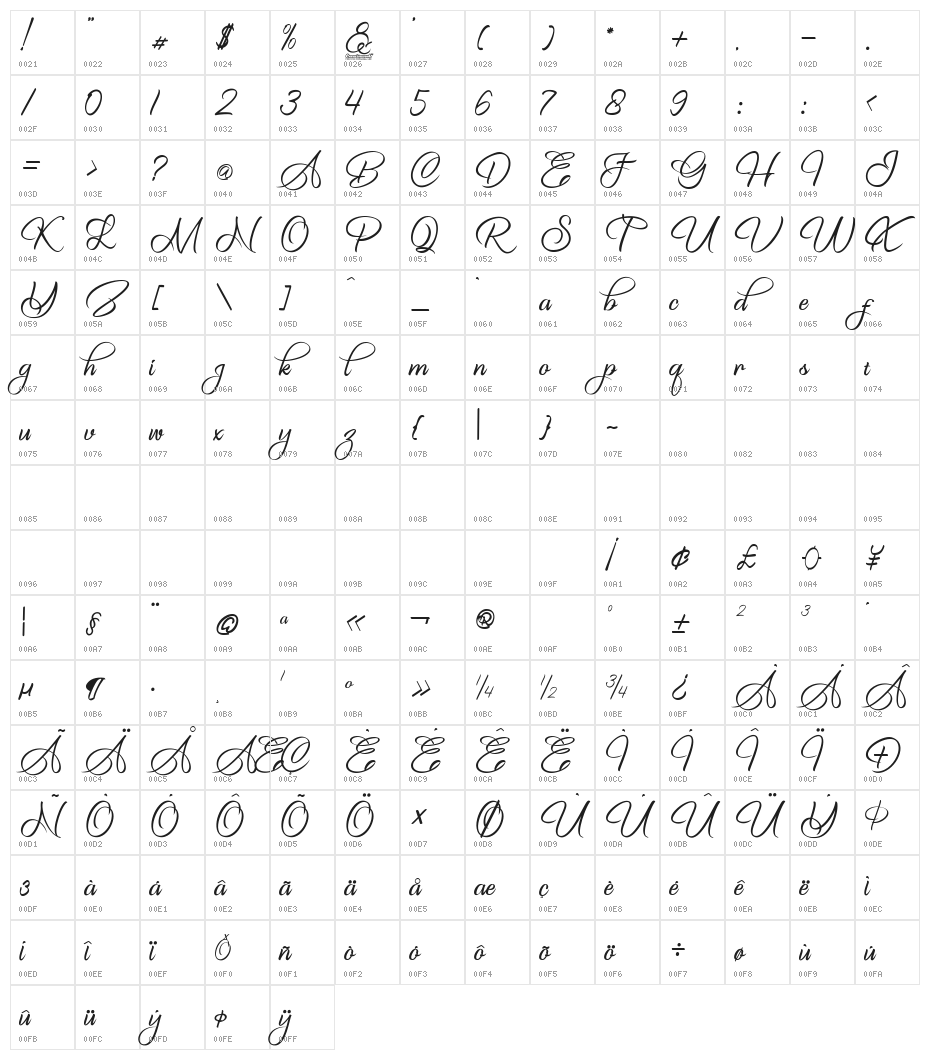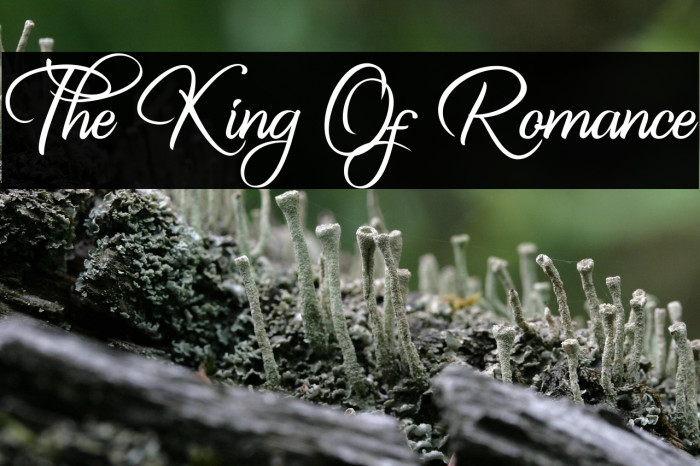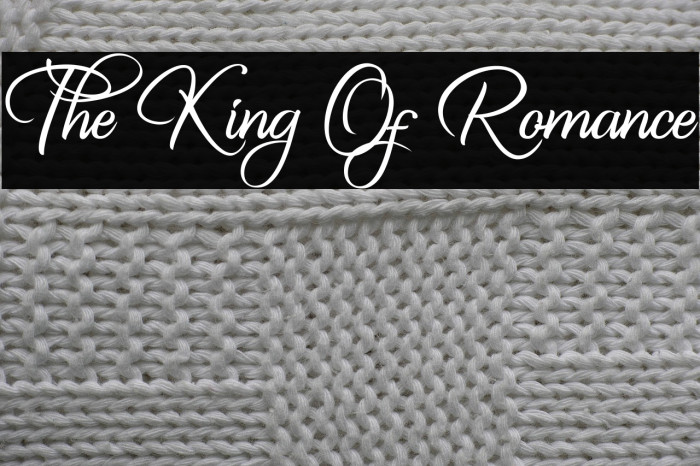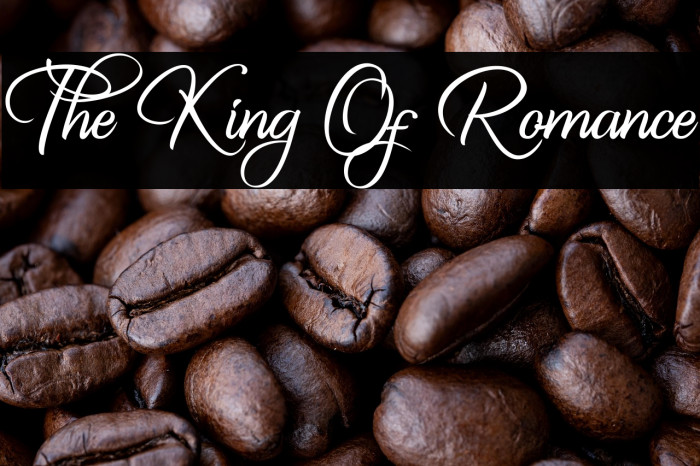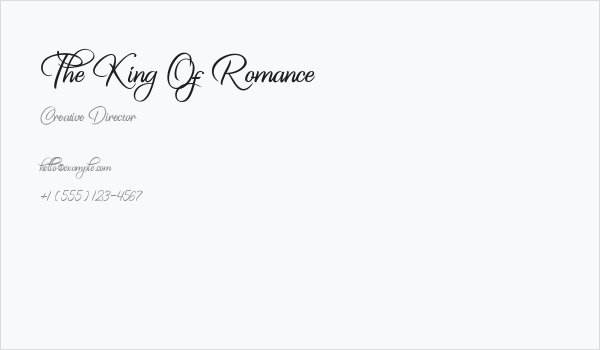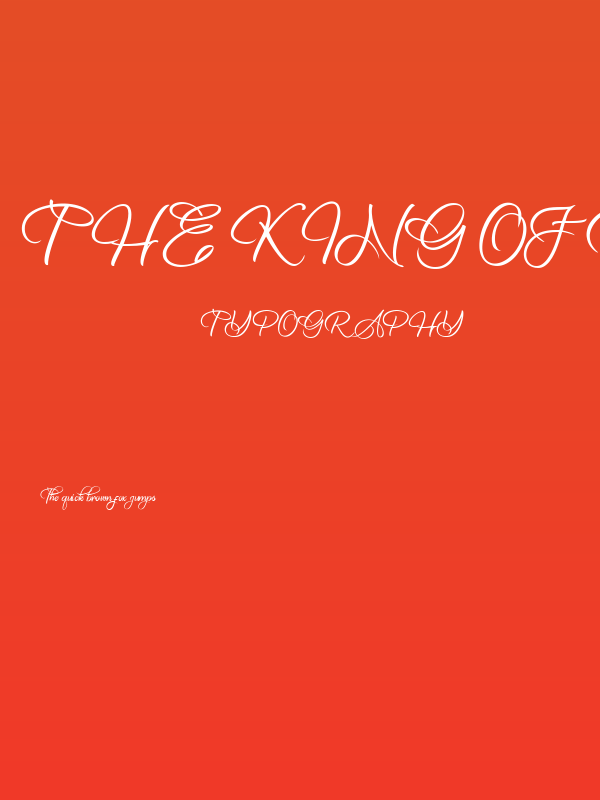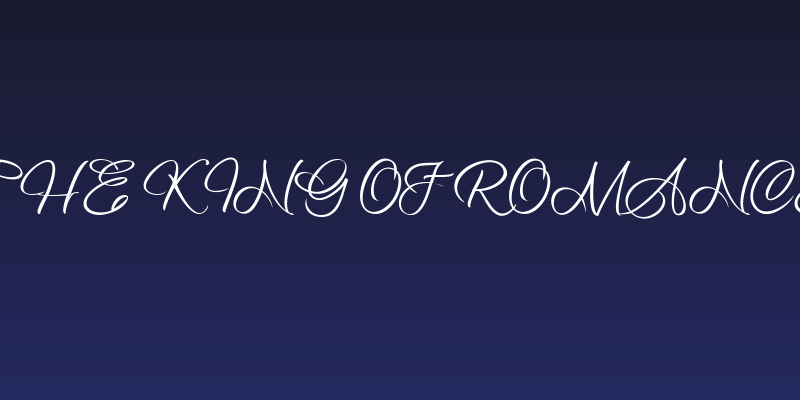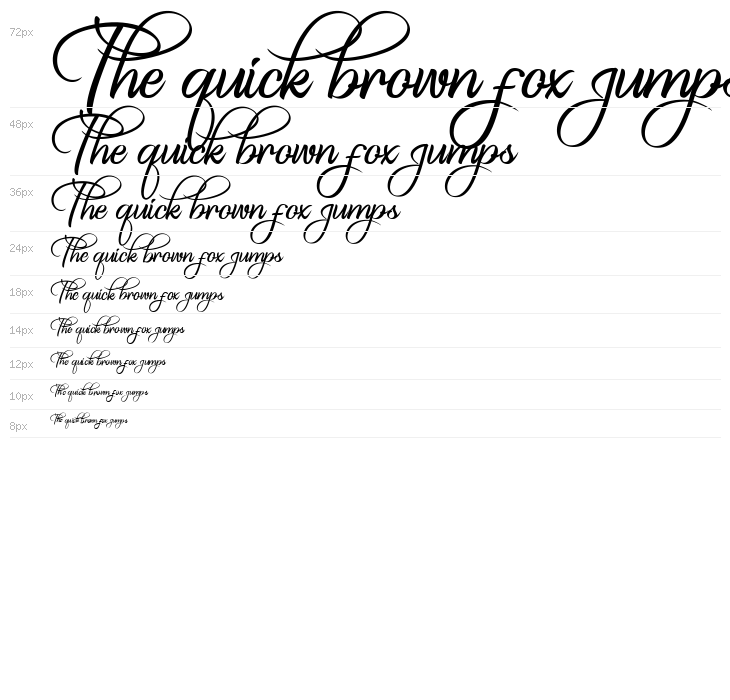
The King Of Romance Font
The King Of Romance Description
This font exudes elegance and sophistication with its flowing, cursive script style. The characters are intricately designed with sweeping curves and flourishes, giving it a romantic and luxurious feel. The uppercase letters are particularly ornate, featuring elaborate loops and swashes that extend beyond the baseline and cap height. The lowercase letters maintain a consistent style, with smooth connections between each character, enhancing readability despite the decorative nature. The numerals and special characters are equally stylized, ensuring a cohesive look across all text elements. This font is perfect for projects that require a touch of class and refinement.
| Proposed Projects | Ideal for wedding invitations, luxury branding, elegant packaging, and romantic greeting cards. |